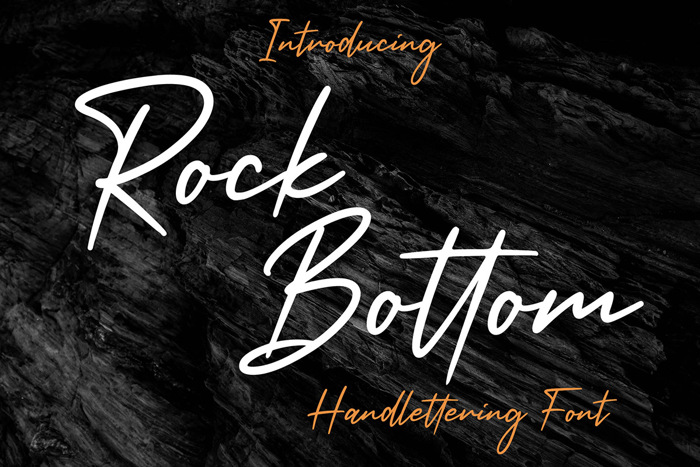
Rock Bottom Font
Rock Bottom is a flowing handwritten font, described by an elegant touch, perfect for your favorite projects. Fall in love with its incredibly distinct and timeless style and use it to create spectacular designs!